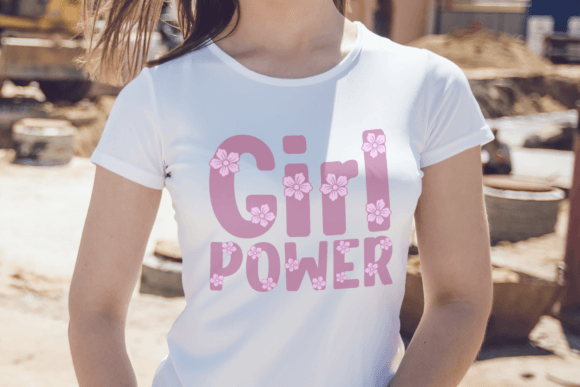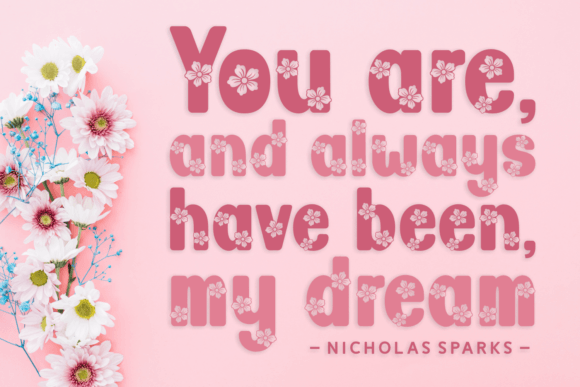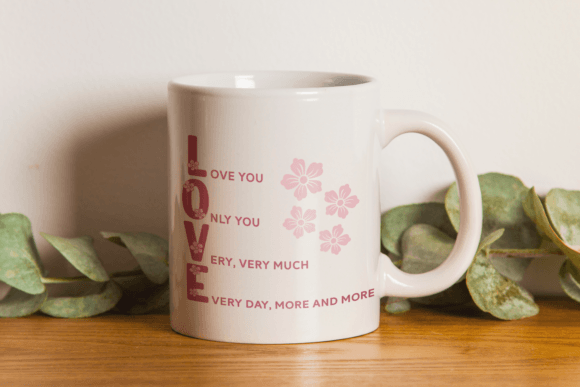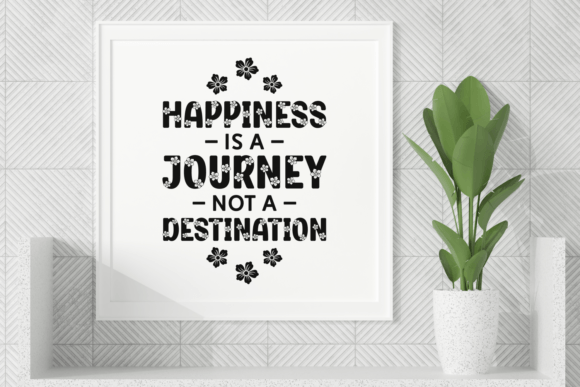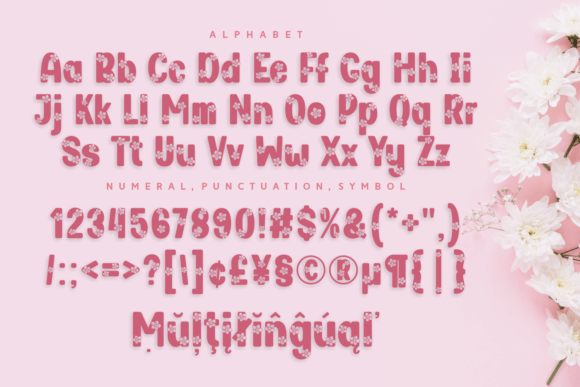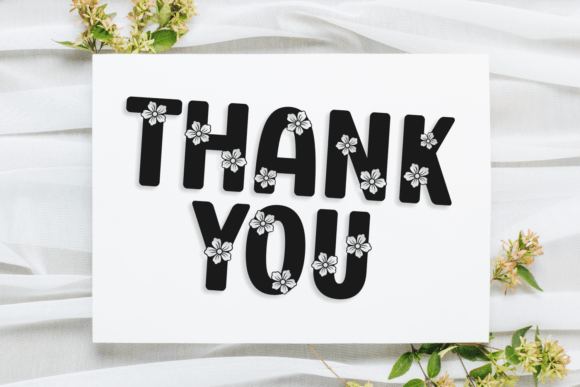
Find Your Island Inspiration with Aloha Milea Font
Have you ever sat on a beach, watching the sunset, and felt the urge to create something beautiful and whimsical? That’s exactly what I felt when I stumbled upon the Aloha Milea Font – a stunning decorative font that brings a touch of tropical magic to any project.
Aloha Milea Font is a gorgeous, PUA encoded font that’s perfect for adding a floral twist to your designs. With its charming elements, you can create stunning Mother’s Day gifts, invitations, logos, and summer designs that are sure to impress. Whether you’re a seasoned designer or just starting out, this font is a valuable addition to your toolkit.
So, why not let Aloha Milea Font transport you to a tropical paradise, where creativity knows no bounds? With its amazing glyphs and endless design possibilities, you’ll be inspired to create something truly special.
Aloha Milea Font Key Features
- Font Size: The font comes in a single weight, making it ideal for use in body text, headings, and titles.
- Unique Characteristics: This font features a unique blend of Hawaiian and modern elements, creating a distinctive and visually appealing aesthetic.
Aloha Milea Font Review
Initially, I was drawn to the Aloha Milea Font due to its unique blend of playful and elegant characteristics. The font’s ✨ rounded edges and ✨ subtle textures give it a sense of sophistication, making it perfect for high-end branding projects. The ✨ script-like flair in the font also adds a touch of whimsy, ideal for creative and artistic ventures.
One of the key strengths of the Aloha Milea Font is its versatility. It can be used for both digital and print projects, and its legibility makes it suitable for a wide range of audiences.
- ⚠️ The font may not be suitable for projects requiring a high level of precision, such as technical documentation or scientific texts.
- ⚠️ Some users may find the font’s rounded edges and ✨ subtle textures distracting or overwhelming in certain contexts.
Overall, I would give the Aloha Milea Font 4 out of 5 stars. While it excels in its versatility and aesthetic appeal, its limitations may restrict its use in certain projects. Nonetheless, it remains a great choice for designers seeking a unique and eye-catching font for their creative endeavors.
Use the Aloha Milea Font for beach-themed designs, tropical travel brochures, or Hawaiian-inspired branding.
To get the most out of the font, use it in combination with bright, pastel colors and playful graphics.